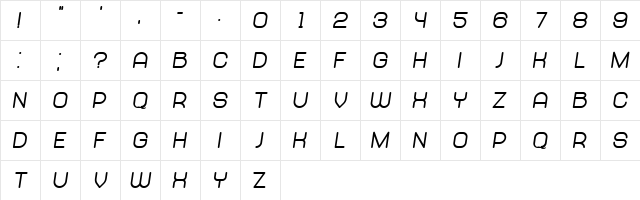
Abandoned Heavy Italic
| Style | Heavy Italic |
Design Context for Abandoned Typeface
Abandoned offers clean, dependable letterforms without strong stylistic allegiance, making it a practical choice for designers who need flexibility. The dynamic lean of this cut emphasises speed and emphasis in any layout.
Pro Tip: Use Abandoned for emphasis, pull quotes, and subheadings where its slanted energy can add rhythm to the layout.